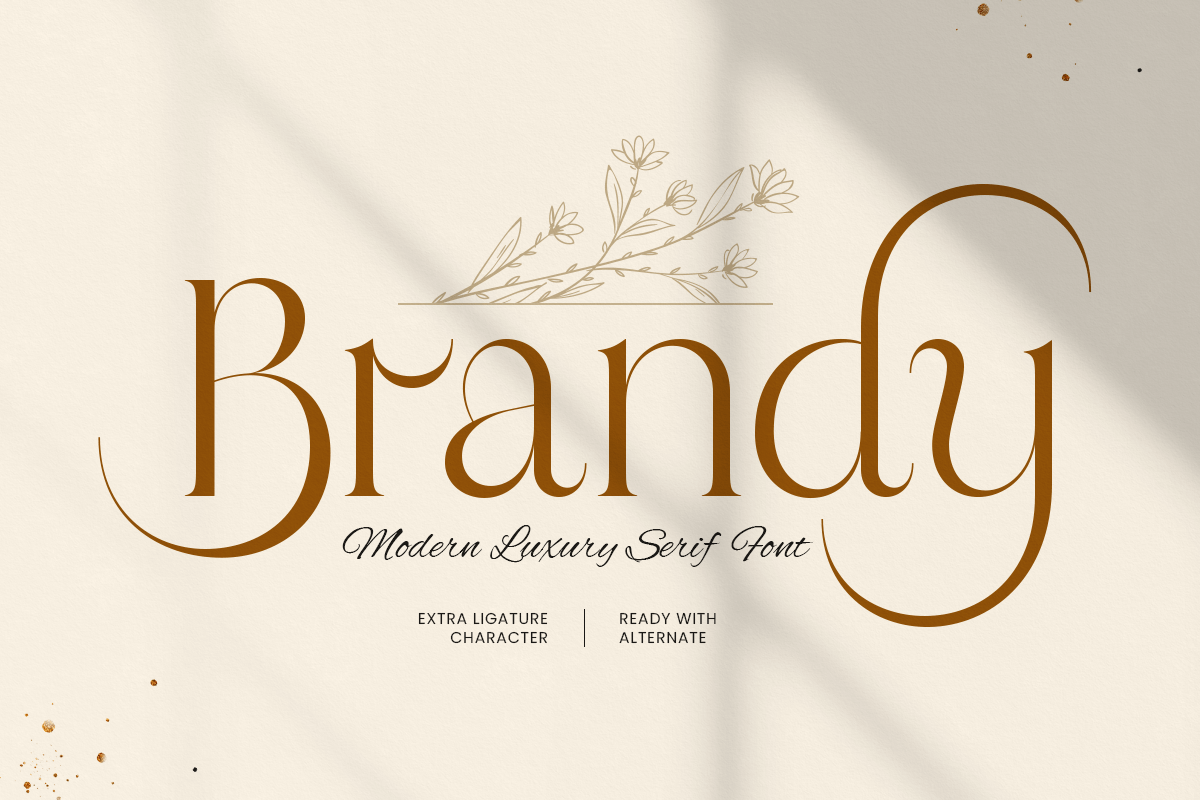
Brandy
-Modern Luxury Serif Font
Brandy - Modern Luxury Serif Font
BRANDY is a modern luxury serif font crafted to deliver refined elegance with a glamorous, editorial finish. Its high-contrast serif structure and graceful swash details create a premium look that feels timeless, sophisticated, and instantly elevated.
Designed for logo design and high-end branding systems, BRANDY shines across wordmarks, boutique identities, beauty packaging, fashion campaigns, magazine headlines, product labels, websites, social media graphics, and premium print layouts. The stylish swashes help you create signature-style typography that feels custom and memorable.
With extra ligature characters and ready-to-use alternates, BRANDY gives designers the flexibility to build distinctive logos and luxurious headlines without sacrificing clarity or polish.
Inspiration Behind BRANDY
BRANDY is inspired by modern luxury branding and cinematic editorial typography—where elegant contrast, graceful swashes, and refined detail create a premium atmosphere. Built to support upscale identities and statement headlines, it’s ideal for projects that need a sophisticated, signature look with strong brand presence.
BRANDY Font Features
• Modern luxury serif with refined contrast
• Elegant swashes for signature-style typography
• Extra ligatures for more distinctive wordmarks
• Alternates included for creative logo variations
• Luxury logos and boutique brand identity
• Fashion, beauty, fragrance, and premium packaging
• Editorial headlines, magazine covers, and lookbooks
• Wedding invitations, monograms, and elegant event design
• Websites, social media campaigns, and premium promos
Elevate premium design with BRANDY—crafted for modern luxury serif elegance with swash-driven impact. ✨